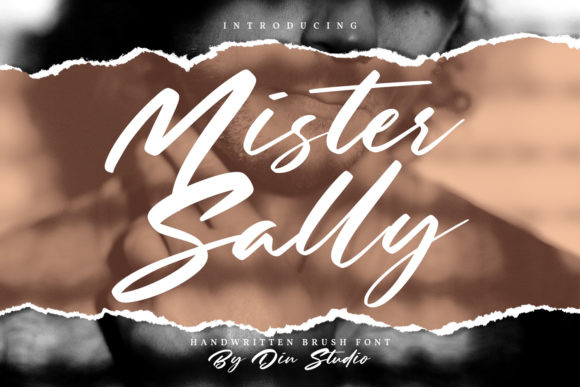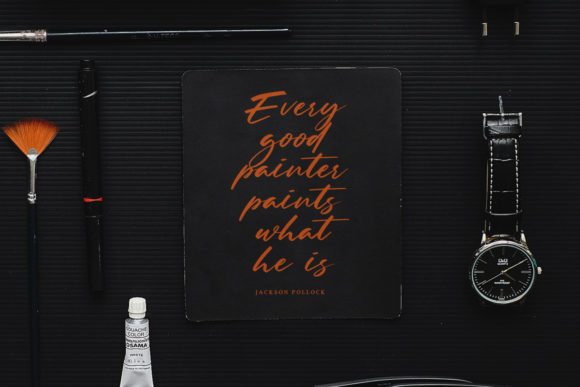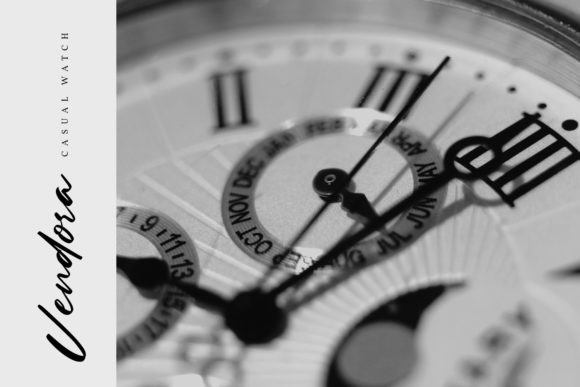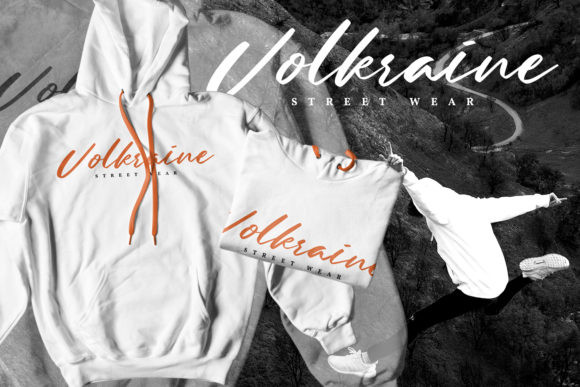
Mister Sally Font
Mister Sally is a flowing and magical handwritten font. Fall in love with its incredibly versatile style and use it to create gorgeous wedding invitations, beautiful stationary art, eye-catching social media posts, and much more!